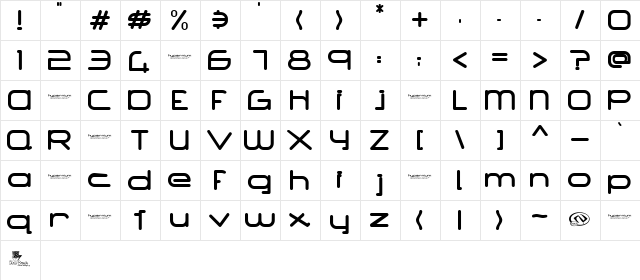
Hypernium(eval) Regular
Design Context for Hypernium(eval) Typeface
Hypernium(eval) takes a measured approach to typography — its balanced proportions and neutral character make it a reliable workhorse for both digital and print work.